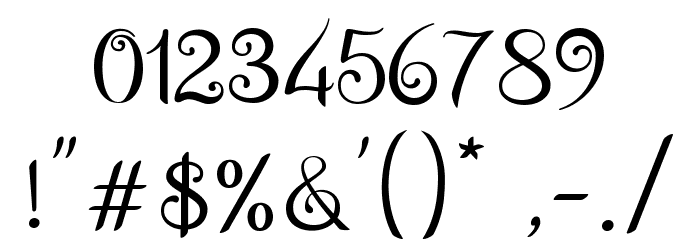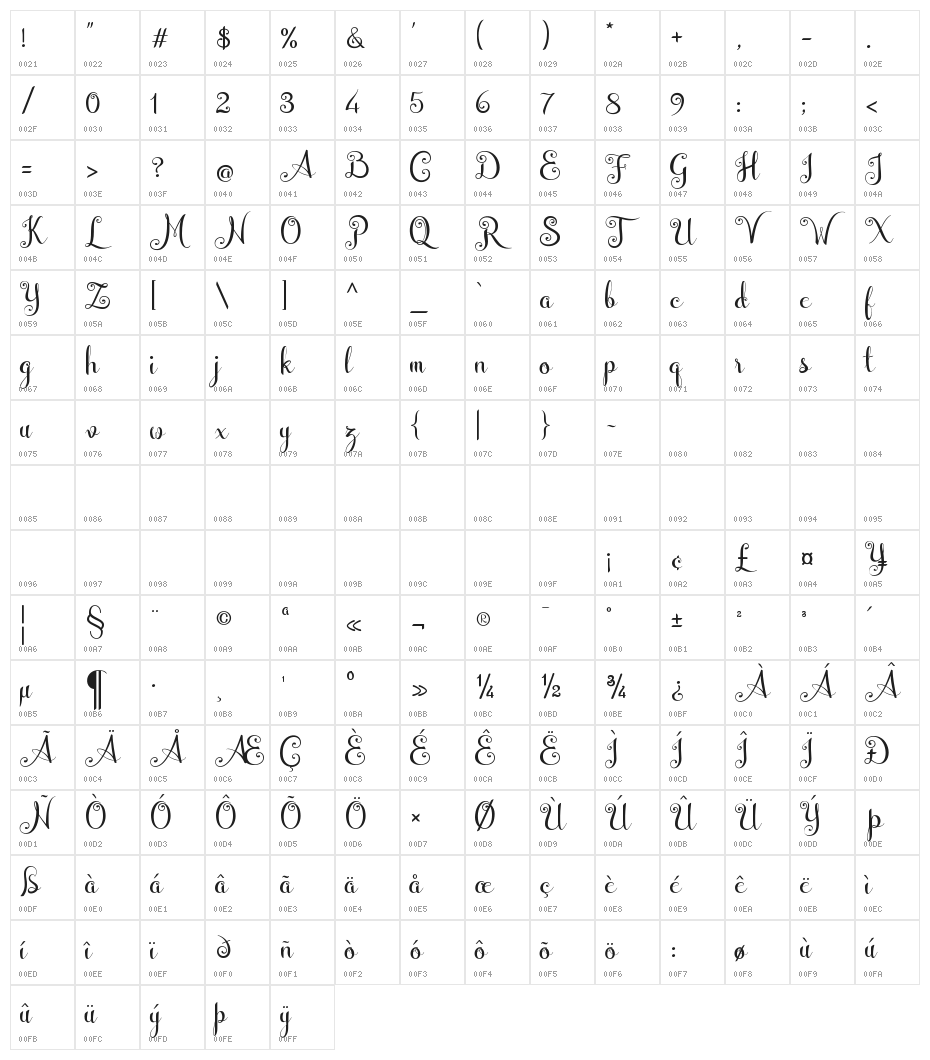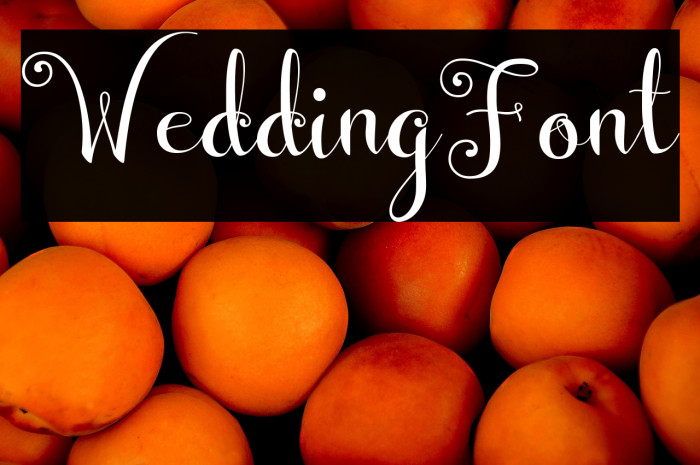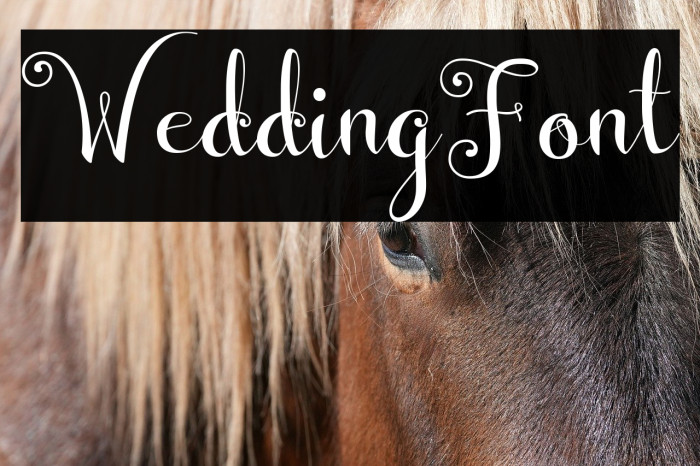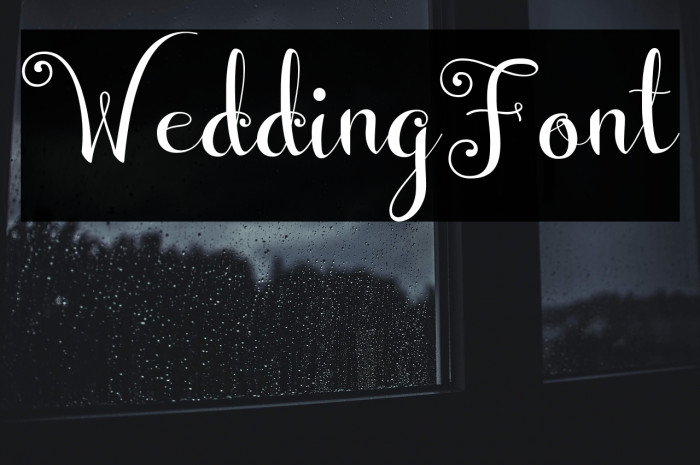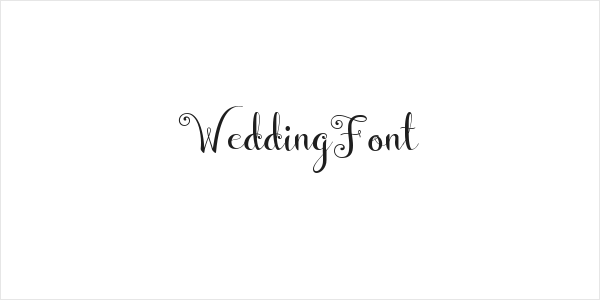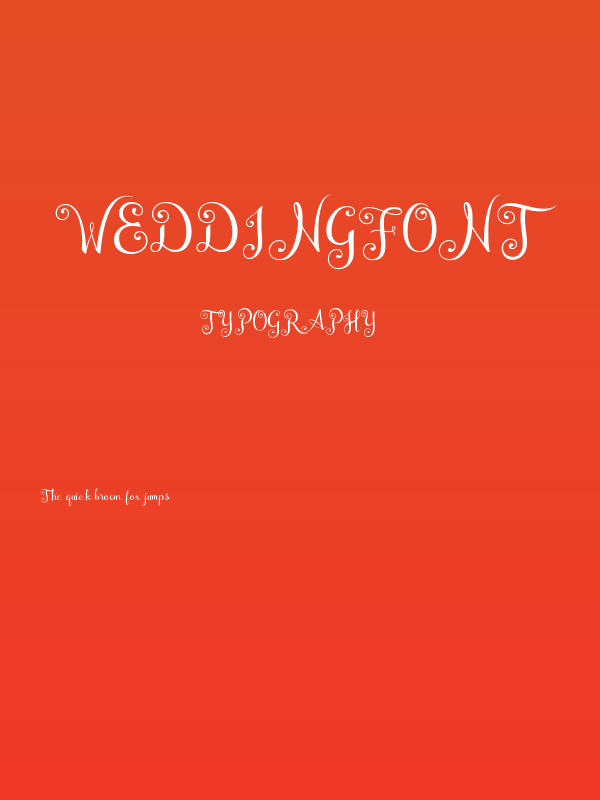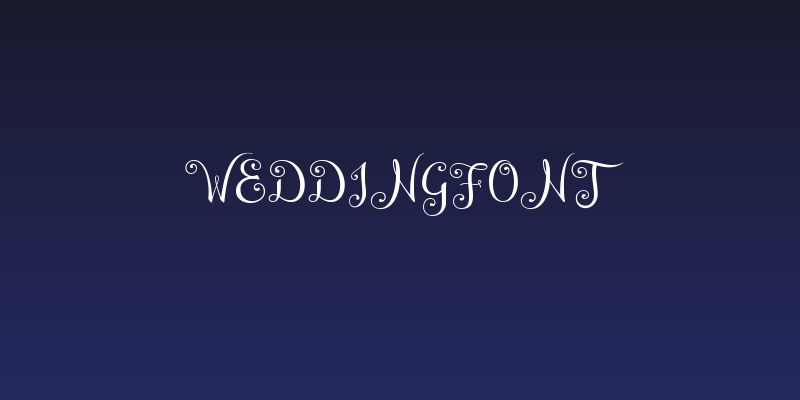
WeddingFont Font
WeddingFont Description
This elegant and decorative font features intricate swirls and flourishes that give it a sophisticated and romantic appearance. The uppercase letters are adorned with elaborate loops, while the lowercase letters maintain a graceful flow, making it ideal for formal and celebratory occasions. The numerals are equally ornate, ensuring consistency throughout any design. Special characters are designed with the same attention to detail, enhancing the font's overall aesthetic. Its artistic style makes it perfect for projects that require a touch of elegance and charm.
Proposed ProjectsIdeal for wedding invitations, greeting cards, event announcements, and decorative signage.